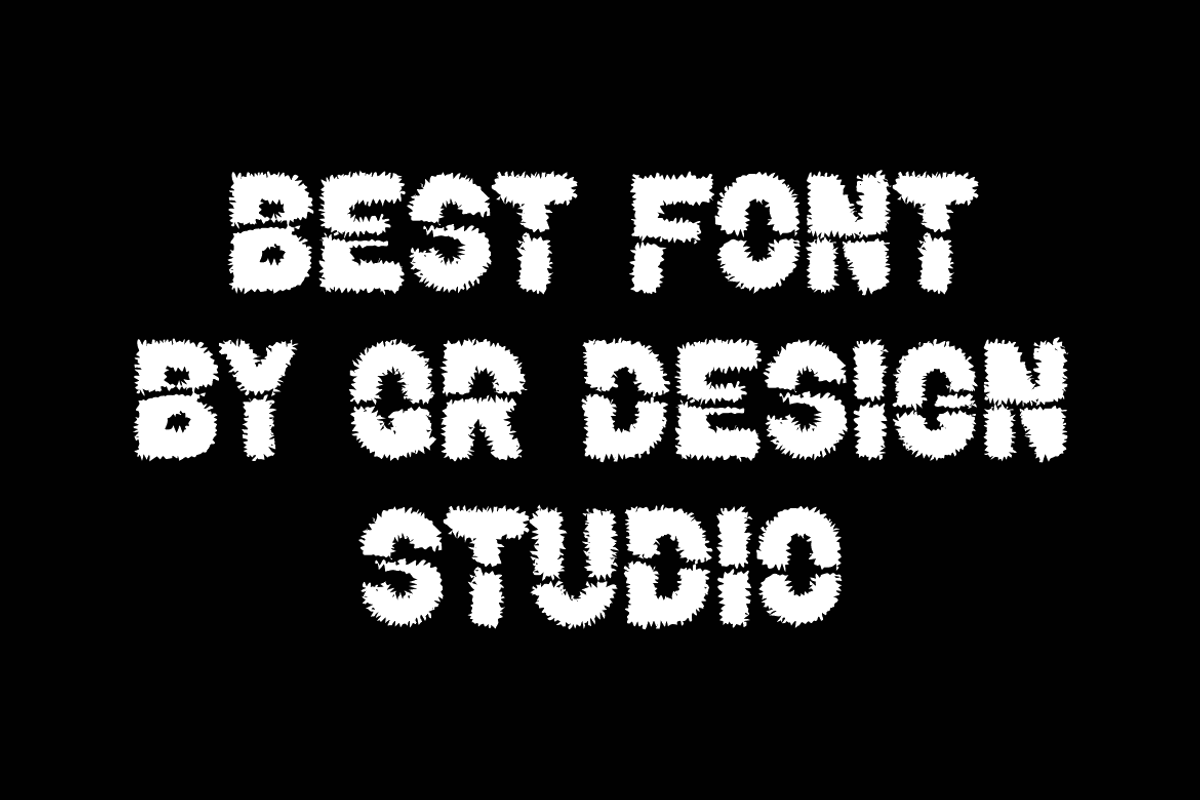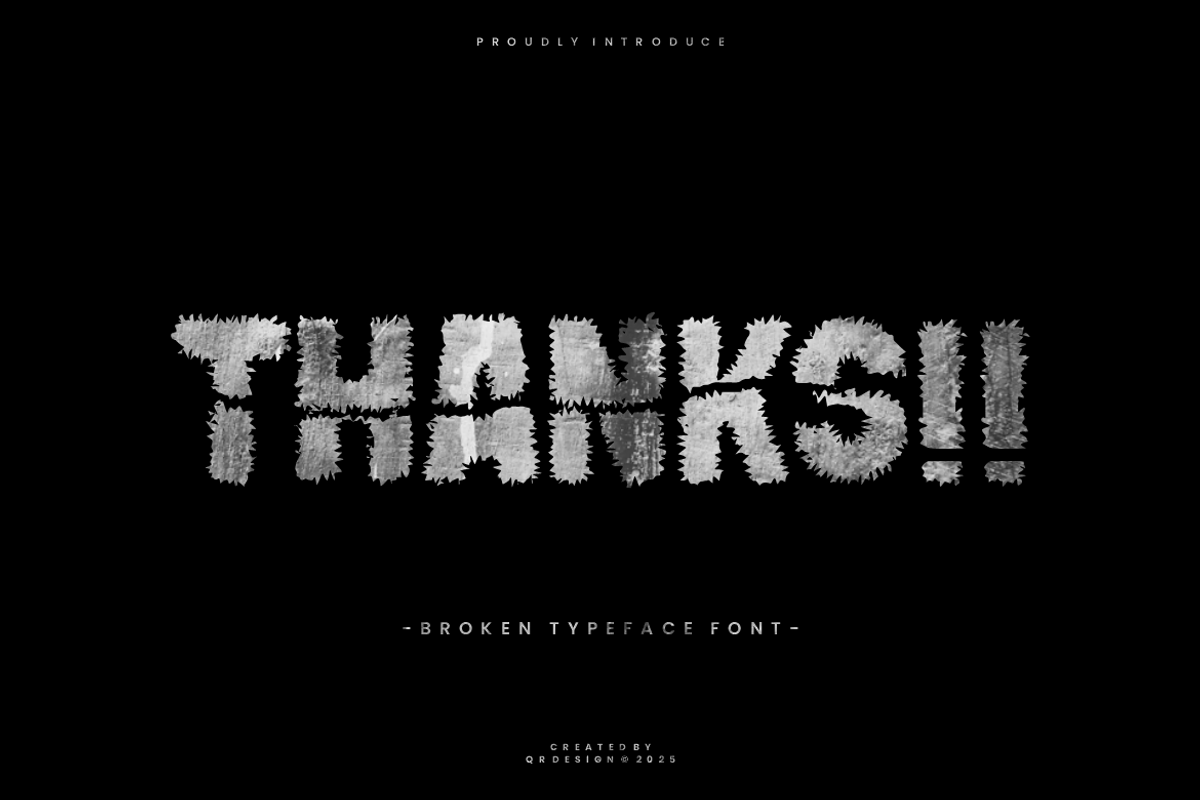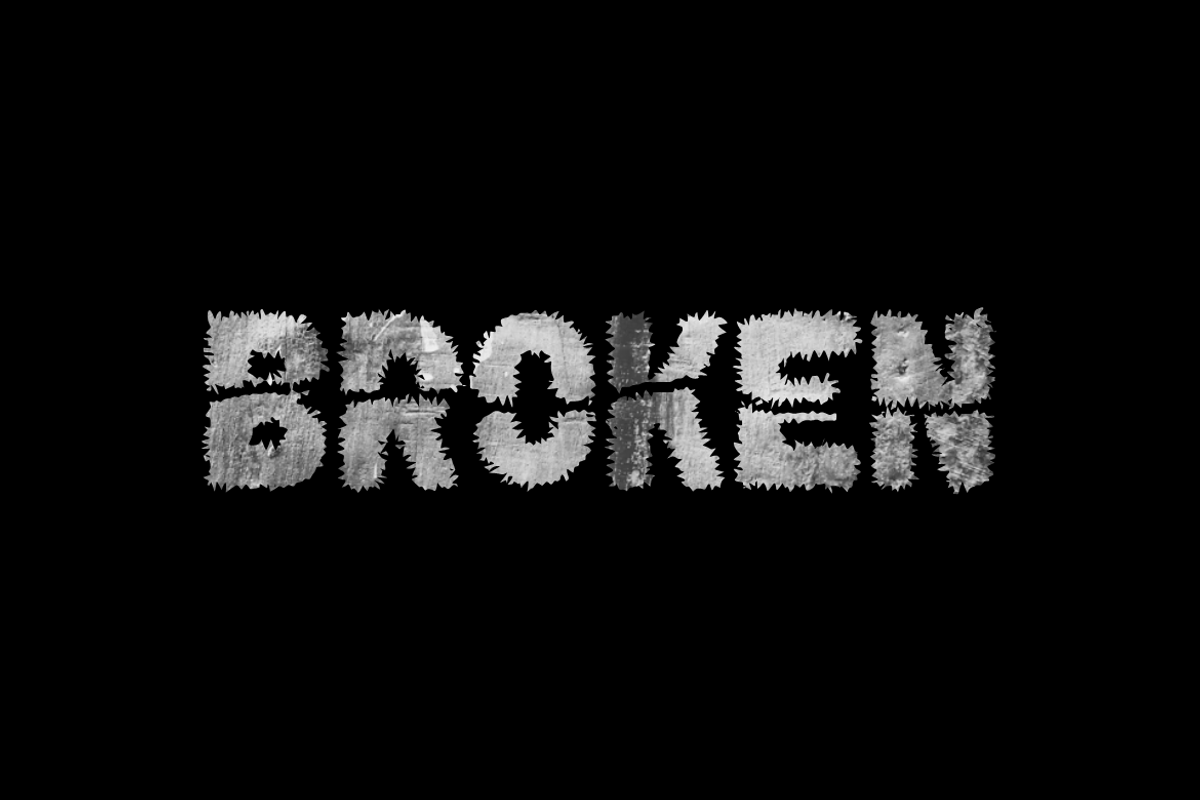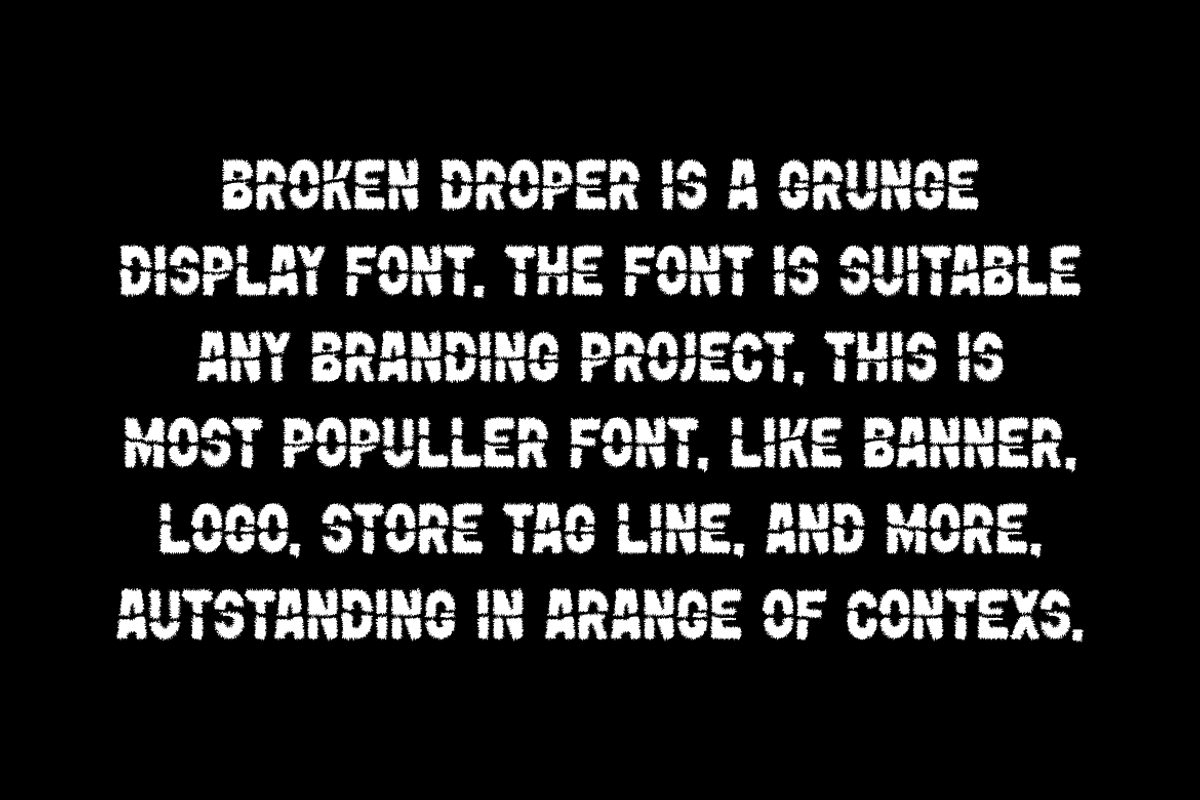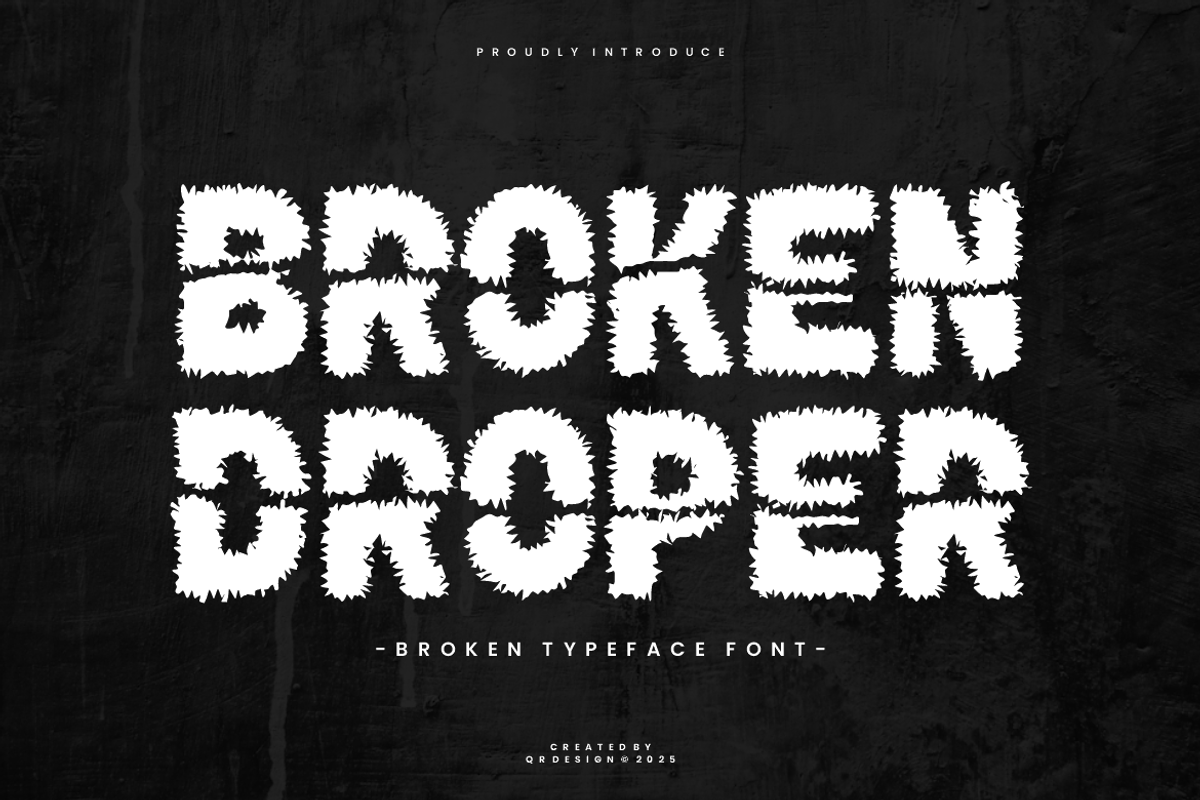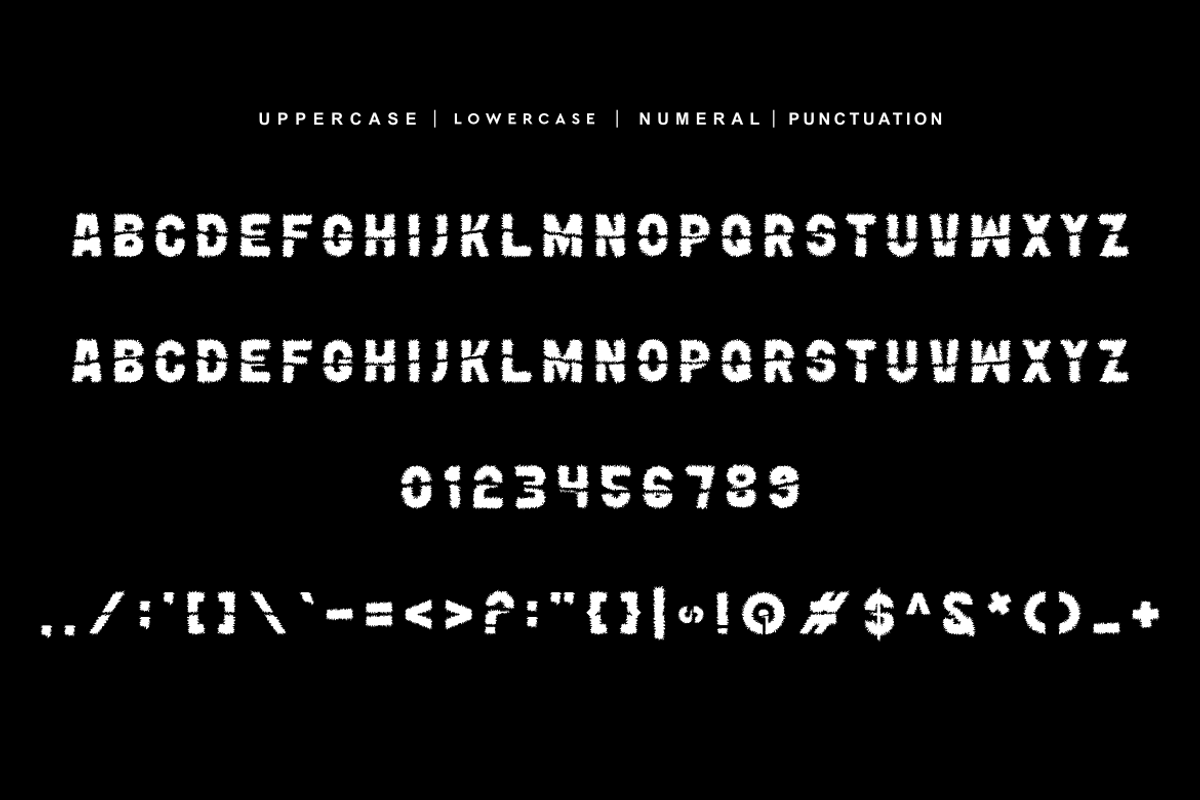
Broken Droper Font
Gaming - Sports Font is a bold and authentic display font. The font is suitable for any branding project like poster, logo, sport, and many more. Outstanding in a wide range of contexts.